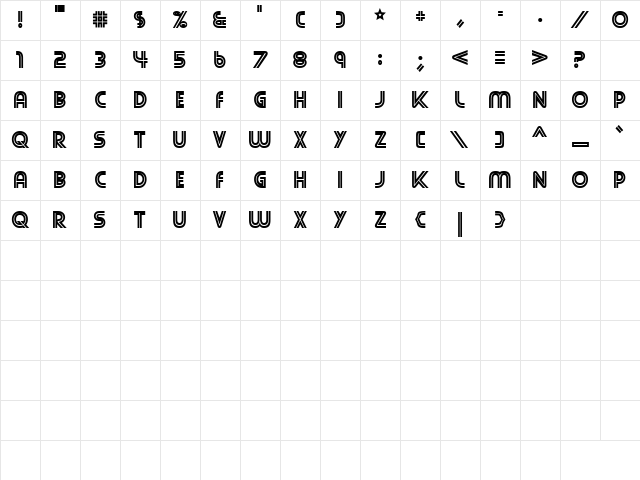
CNN Regular Free Font
CNN Regular
Design Context for CNN
CNN is a composed and adaptable typeface that performs quietly and consistently across a wide range of design contexts.
Pro Tip: Use CNN in both headline and body roles to test its range before committing to a single application.